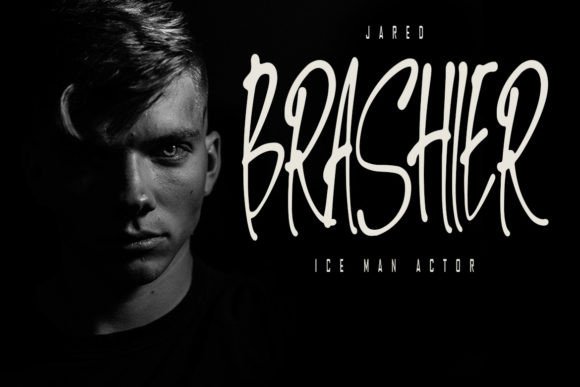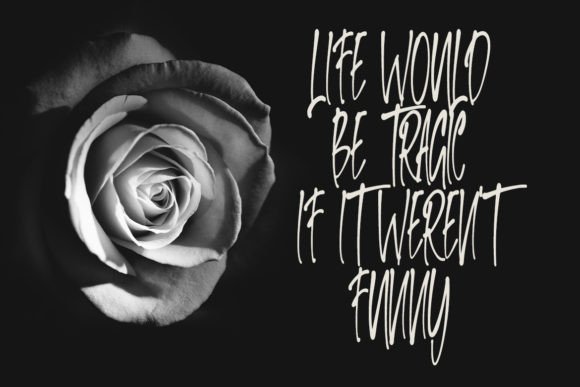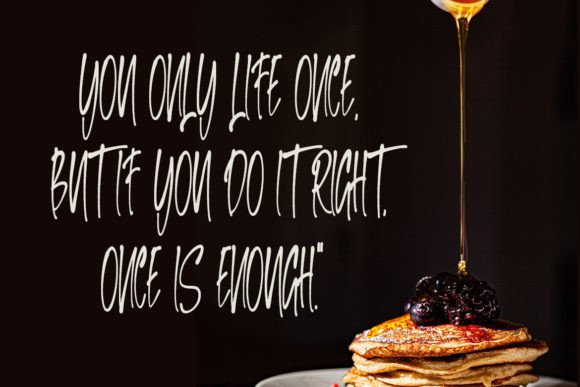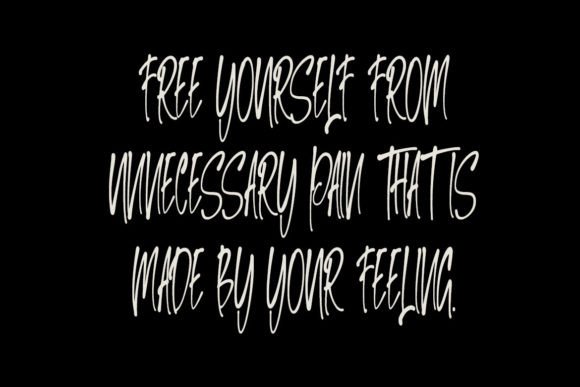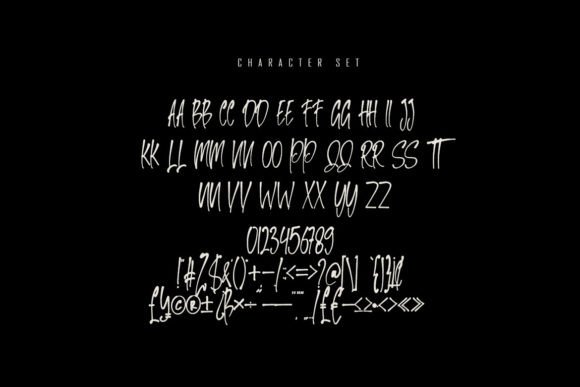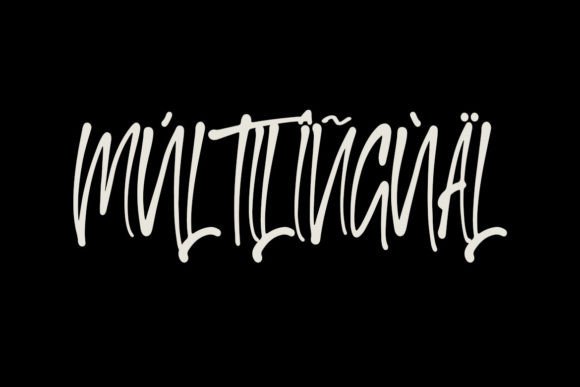
Bromlys Font: Elevate Your Designs with a Touch of Elegance
In the world of typography, a font can make or break a design. For designers and crafters looking to add a dash of sophistication and style to their projects, Bromlys Font is an excellent choice. This handwritten signature script boasts a natural flow and beautiful style, making it perfect for a wide range of applications.
The Characteristics of Bromlys Font
Bromlys Font is a classy, elegant, and modern script that exudes refinement and poise. Its handwritten nature gives it a personal and intimate feel, while its clean lines and fluid strokes ensure that it remains highly legible. The font’s natural flow makes it ideal for creating beautiful, flowing text that draws the reader in.
Uses for Bromlys Font
One of the best things about Bromlys Font is its versatility. Its elegant style makes it suitable for a wide range of projects, including:
- Logos and Branding: Create a lasting impression with a custom logo or brand identity that showcases your business’s personality and style.
- Invitations and Stationery: Add a touch of sophistication to your invitations, greeting cards, and stationery with Bromlys Font’s beautiful script.
- Wedding Designs: Make your wedding stationery, signage, and decor truly unforgettable with this stunning font.
- Social Media Posts: Elevate your social media presence with eye-catching graphics and posts that feature Bromlys Font.
- And More: From packaging design to advertising, Bromlys Font can be used in countless other projects where a touch of elegance is desired.
Why Choose Bromlys Font?
With so many fonts available, why choose Bromlys Font for your next project? Here are just a few reasons:
- Unique Style: Bromlys Font offers a distinctive and stylish look that sets it apart from more traditional fonts.
- Highly Legible: Despite its elegant nature, Bromlys Font remains highly legible, making it suitable for both headings and body text.
- Easy to Use: This font is incredibly easy to use, even for those without extensive design experience.
- Versatile: As mentioned earlier, Bromlys Font can be used in a wide range of projects, making it a great addition to any designer’s toolkit.
Tips for Using Bromlys Font
To get the most out of Bromlys Font, here are a few tips to keep in mind:
- Experiment with Sizes: Bromlys Font looks great in a variety of sizes, from large headings to smaller body text.
- Play with Colors: This font works well with a range of colors, from bold and bright to soft and pastel.
- Mix and Match: Don’t be afraid to combine Bromlys Font with other fonts to create a unique and interesting look.
- Keep it Simple: While Bromlys Font is perfect for decorative projects, it can also be used for more simple designs, such as business cards or letterheads.
Bromlys Font is a beautiful and versatile script that can elevate any design project. Its elegant style, natural flow, and high legibility make it perfect for a wide range of applications, from logos and branding to invitations and social media posts. Whether you’re a designer, crafter, or simply someone looking to add a touch of sophistication to your projects, Bromlys Font is an excellent choice.
So why not give Bromlys Font a try? With its unique style and ease of use, it’s sure to become a favorite in your design toolkit.